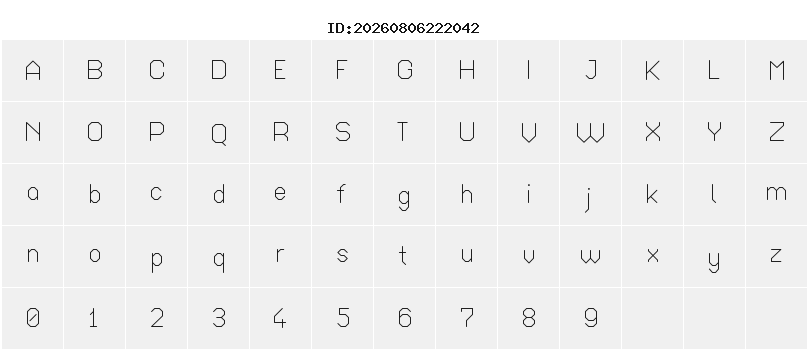
• Font Name: Octagonal
• Designer: Vít Čondák
About Octagonal.ttf
Octagonal.ttf is a modern, elegant sans-serif font designed for ultimate readability and visual harmony. Perfect for branding, headlines, web design, and print materials.